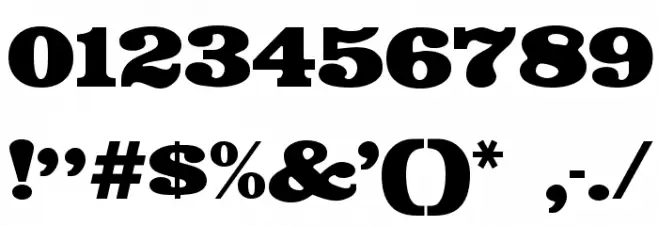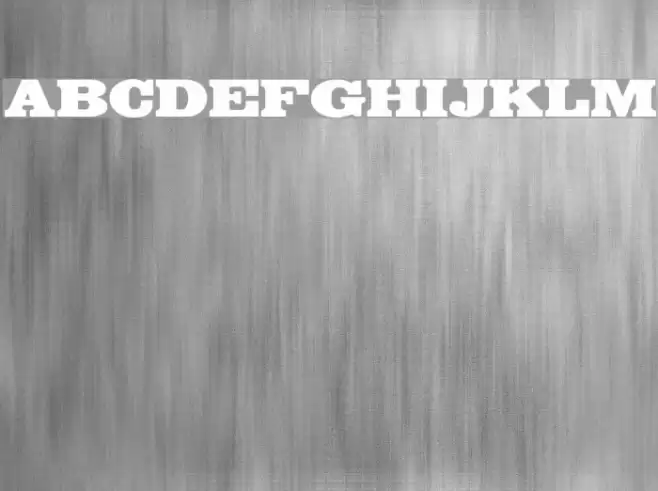
Saloon Font
Saloon Description
This font exudes a bold and robust character with its thick, slab-like serifs and strong vertical stress. The uppercase letters are particularly striking, with a commanding presence that draws attention. The lowercase letters maintain a consistent weight, ensuring readability while adding a touch of elegance. The numerals are equally bold, making them ideal for impactful statements. Special characters are designed with the same boldness, ensuring they stand out. Overall, this font combines traditional serif elements with a modern twist, making it versatile for various design needs.